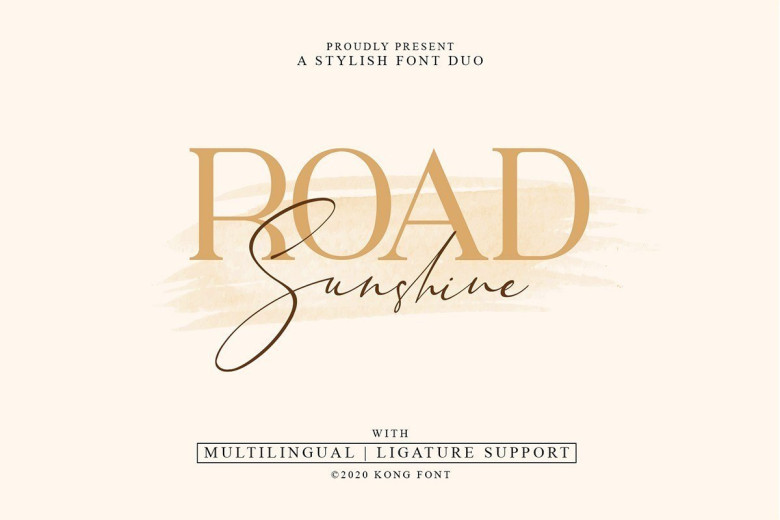
Road Sunshine Font Duo
Road Sunshine Font is a stylish font duo with the perfect combination of an energetic signature script and a bold uppercase-only serif. The combination of both fonts work perfect for all kind of branding projects, printed quotes, invitation cards, social media headers, product packaging and a lot more!